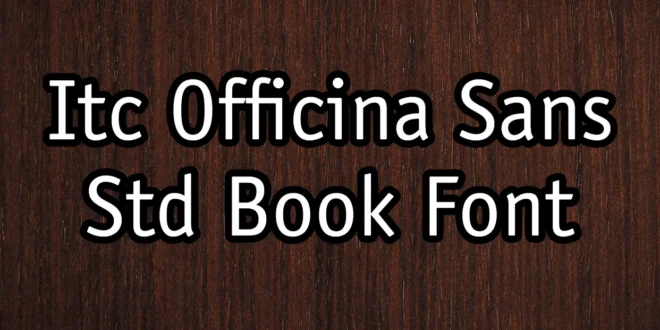
ITC Officina Sans Std Book Font is a versatile and highly regarded typeface known for its clean and modern design. Created by Erik Spiekermann in the early 1990s, this font was designed to meet the needs of professional communication, particularly in business environments. Its straightforward, yet elegant sans-serif style makes it ideal for a wide range of applications, from print media to digital platforms.
It has been widely adopted in corporate settings for use in documents, presentations, and branding materials. Its clean lines and legibility make it an excellent choice for conveying information clearly and effectively. You can easily pair it with Simpel Font, and create outstanding projects.
Uses of ITC Officina Sans Std Book Font
This Font is ideal for professional documents that require clarity and precision. Its clean design ensures that text is easy to read, making it perfect for reports, business letters, and corporate branding. The font’s versatility allows it to be used across various formats, including both print and digital media, ensuring a cohesive look for all your communication needs.
In addition to professional use, This typeface is also well-suited for creative projects that demand a modern and approachable style. Designers often use this font for websites, apps, and other digital platforms where readability is key. Its sleek appearance adds a touch of sophistication to any project, whether it’s a corporate website or a personal blog.
Moreover, the font’s adaptability makes it a great choice for branding and marketing materials. Companies looking to establish a professional image often turn to this texture for their logos, business cards, and advertising campaigns. Its ability to convey both professionalism and approachability makes it a powerful tool for any brand.
| Designer | Erik Spiekermann |
| Type | Sans Serif |
FAQs About ITC Officina Sans Std Book Font
Who designed the ITC Officina Sans Std Book texture?
It was designed by Erik Spiekermann and Ole Schäfer. It was published by the International Typeface Corporation (ITC).
How many styles are available in the ITC Officina Sans Font Family?
The ITC Officina Sans texture Family includes 10 different styles, offering a range of options for various design needs.
What are some popular uses for ITC Officina Sans Std Book Font?
This font is widely used in professional documents, corporate branding, web design, and creative projects that require a clean, modern, and readable typeface.
What are some alternatives to ITC Officina Sans Std Book texture?
Similar fonts include FF Meta, Calibri, Helvetica Neue, and Arial, offering clean and professional sans-serif styles.